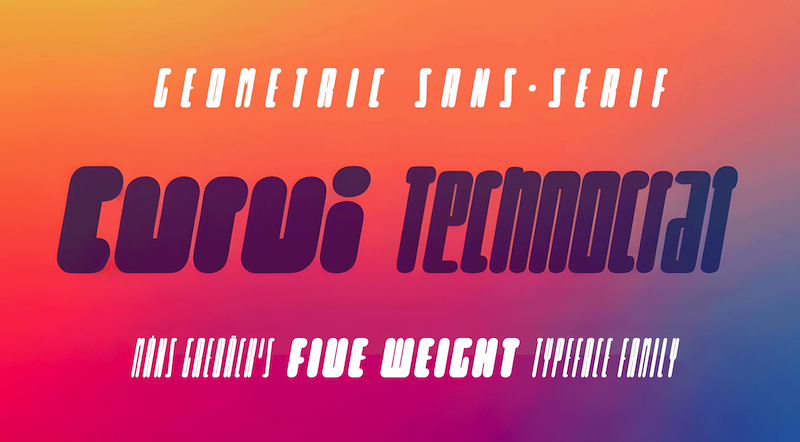
Preview and download Curvi Technocrat Font. Created by Måns Grebäck in Fancy Various styles with Free for personal use license.
NOTE: This font is for PERSONAL USE ONLY! To purchase a commercial license, visit: http://mn.sg/curvi-technocrat Curvi Technocrat is a rounded, geometric font that captures the essence of speed and forward movement. Inspired by the smooth curves of race cars and the energy of urban graffiti, this heavy, slanted font family adds a touch of dynamism and softness to your designs. For questions, please visit www.mansgreback.com/faq |